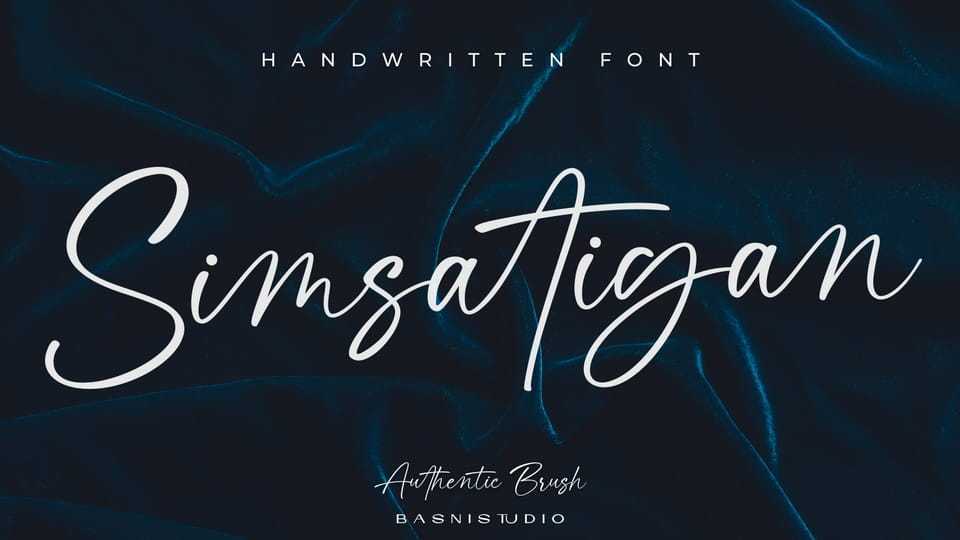
Download Simsatigan font, a casual handwritten typeface created with real pen strokes for a natural look and personal touch to everything from branding and social media to invitations and packaging.